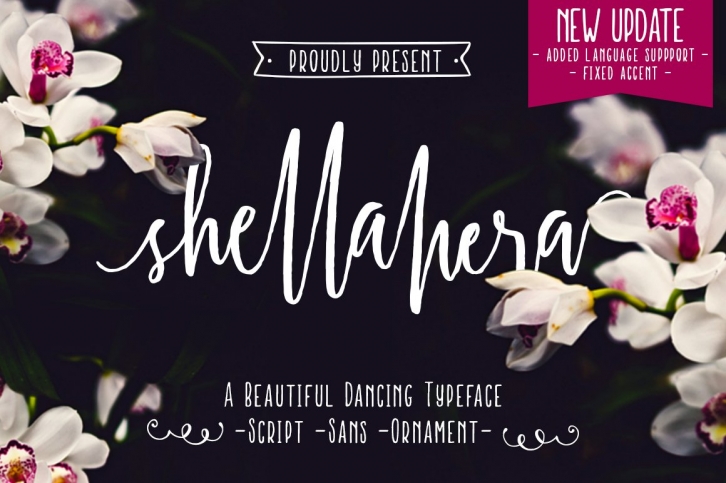
ShellaHera is a handwritten script font family made using original brush pen and scanned with high resolution make this font is very personality and yes, it's so beautiful with a dancing baseline.
Available Character A-Z, a-z, 0-9, punctuation, ÀÃÂÄÅÆÈÉËÌÃÃŽÃÃÑÒÓÔÕÖרÙÚÛÜà à áâãäåæèéêëìÃîïðñòóôõöøùúûüýÿĆćČÄÄŽÄÄđĚěĹ弾 ÅłŃńŇňÅőŔŕŘřŚśŠšŢţŤťŮůŰűŸŹźŻżŽžžĄąĘę